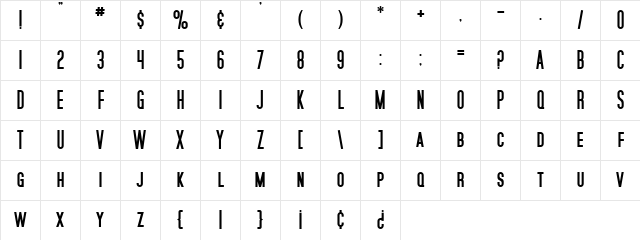
SF Movie Poster Bold Free Font
SF Movie Poster Bold
SF Movie Poster Family
Design Context for SF Movie Poster
SF Movie Poster is a composed and adaptable typeface that performs quietly and consistently across a wide range of design contexts. Its bold stroke weight gives it real presence on the page.